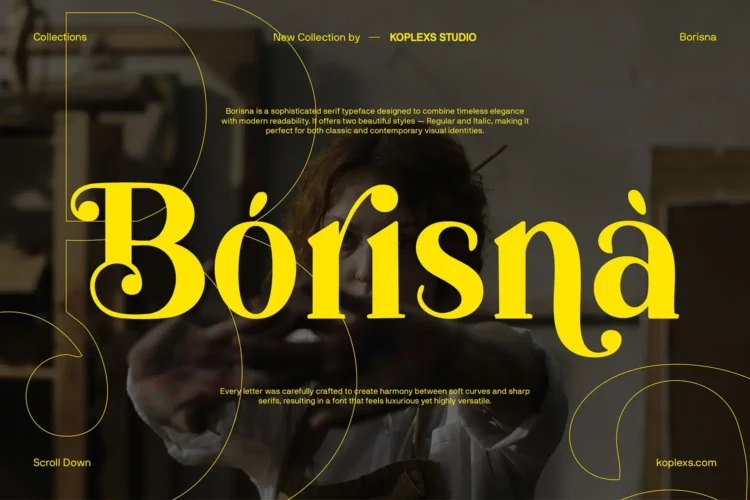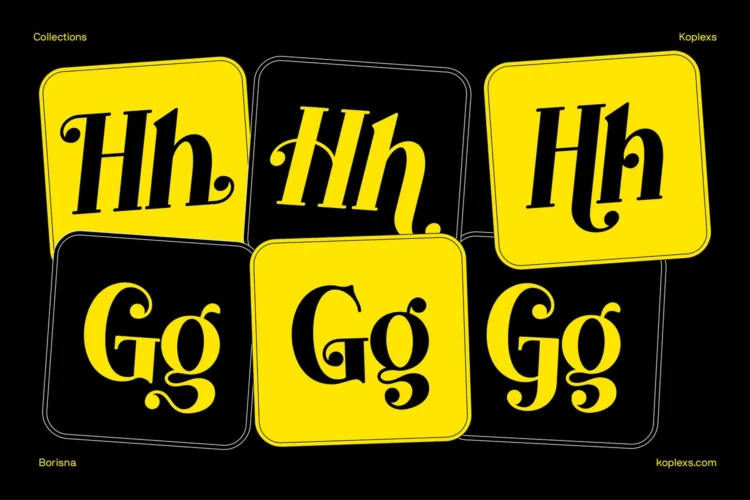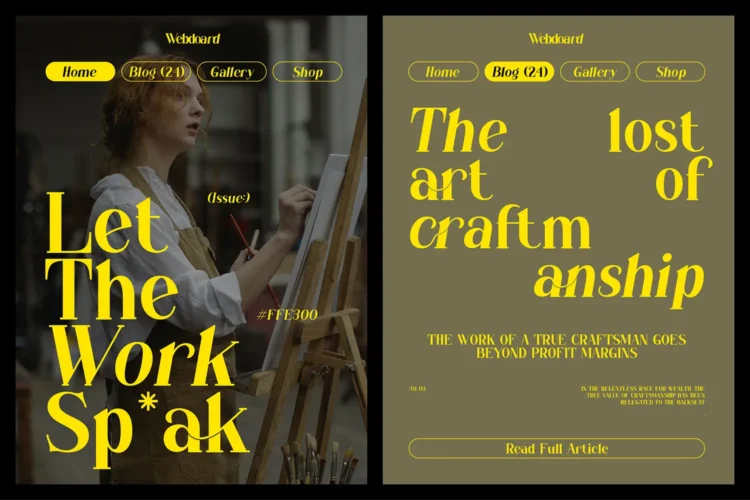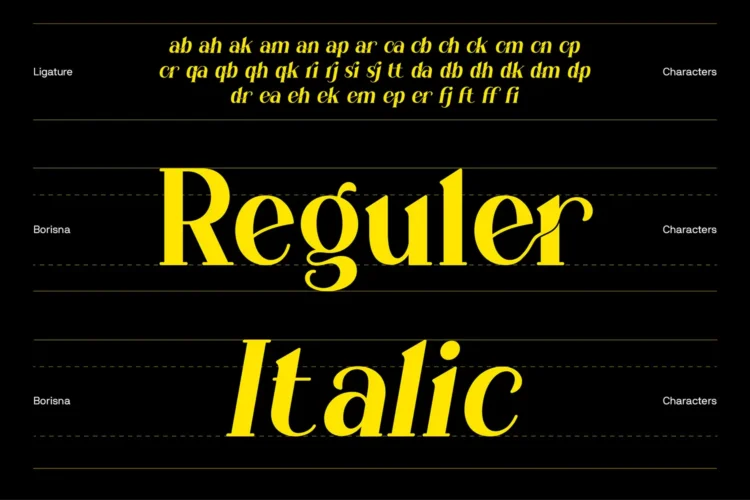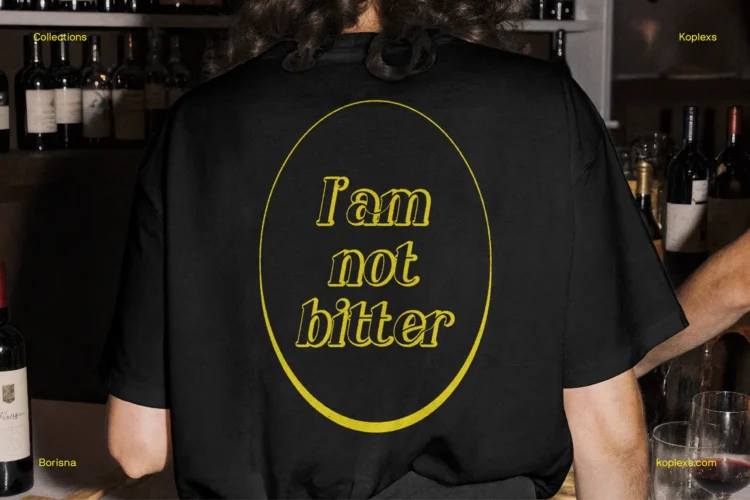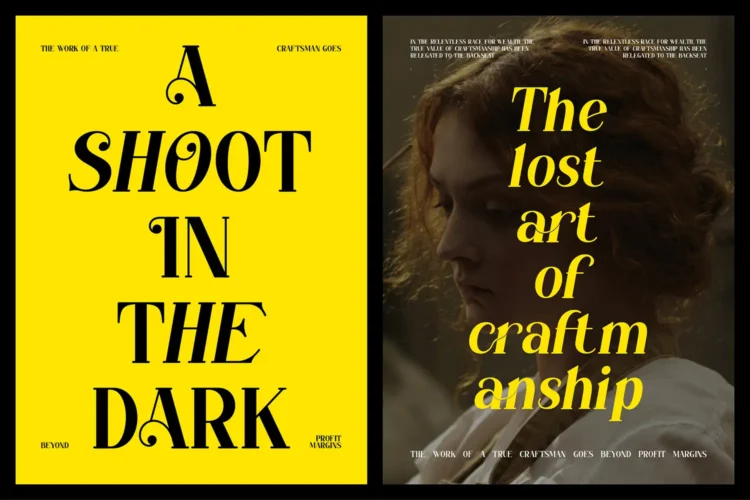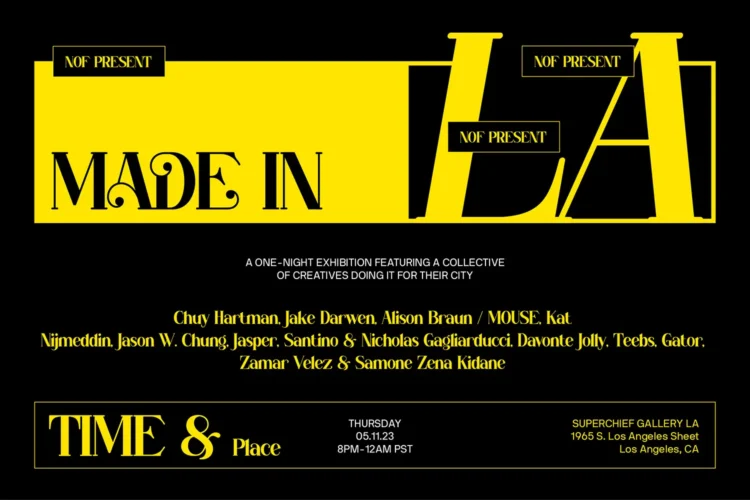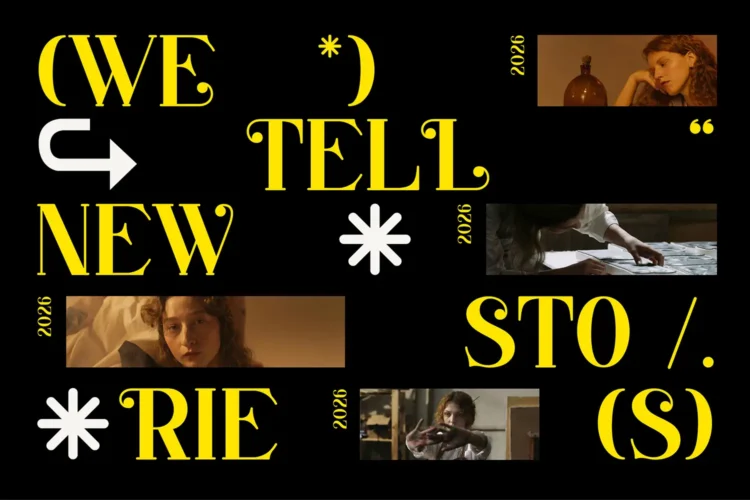
Borisna Font | Elegant Editorial Serif Typeface for Branding & Creative Design
Borisna Font is an elegant serif typeface created for designers who want typography with personality, sophistication, and a strong editorial feel. Its high contrast letterforms combine graceful curves, sharp serif details, and expressive shapes that instantly make headlines and visual identities feel more refined.
Borisna brings a modern fashion inspired look while keeping the timeless character of classic serif typography. Large letters become the main visual element, making this font especially effective for bold layouts where typography needs to stand out.
Its distinctive character works beautifully across minimalist designs, artistic compositions, luxury branding, and contemporary editorial projects. Whether used over photography or on clean backgrounds, Borisna creates a confident and memorable impression.
Borisna Font Included :
- Regular & Italic
- Ligatures & Alternate Fitures
Perfect For These Design Styles
- Luxury brand identity
- Logo and wordmark design
- Editorial and magazine layouts
- Fashion branding
- Beauty and cosmetic packaging
- Wine and beverage labels
- Product packaging
- Posters and advertising
- Website headlines
- Social media graphics
- Restaurant and lifestyle branding
- Invitations and promotional materials
- Merchandise and apparel
- Creative portfolio projects
Borisna is a great choice when you need a serif font that feels elegant, artistic, premium, and visually expressive without losing readability.